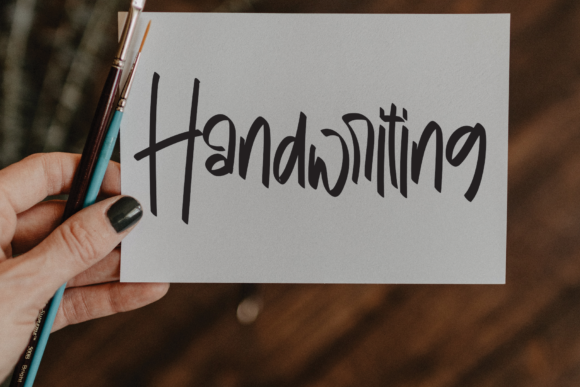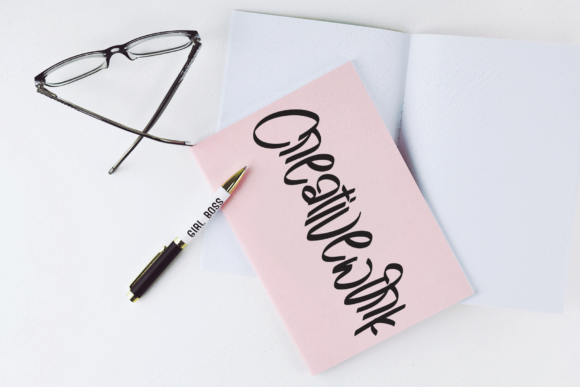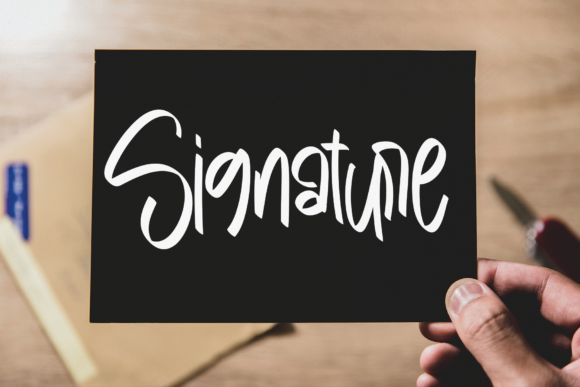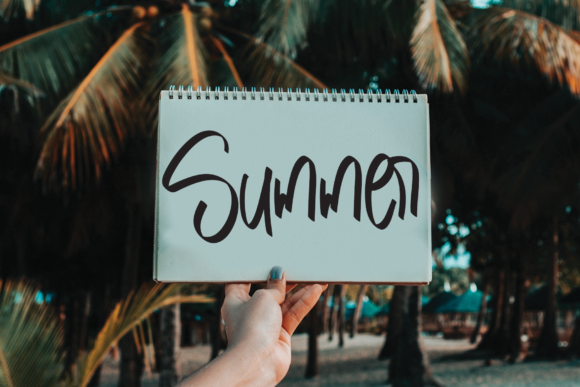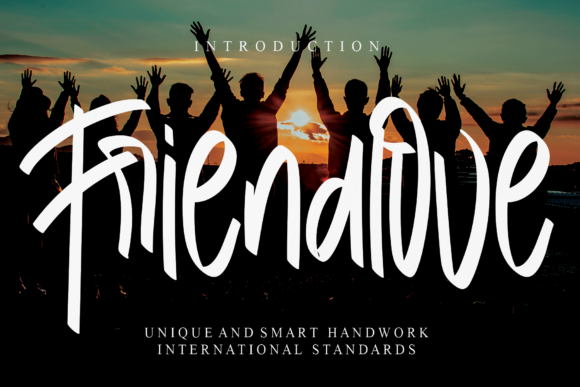
Discover the Charm of Friendlove Font: Elevate Your Designs with a Whimsical Script Font
In the world of typography, fonts play a crucial role in conveying the tone and personality of a design. For designers and crafters looking to add a touch of whimsy and relaxation to their creations, Friendlove Font is an excellent choice. This lovely script font boasts a relaxed theme, making it an incredible asset to any font library. In this article, we’ll explore the features and benefits of Friendlove Font, and how it can elevate your designs to the next level.
What is Friendlove Font?
Friendlove Font is a unique and charming script font that exudes a sense of calmness and friendliness. Its whimsical style is perfect for designs that require a personal touch, such as invitations, greeting cards, and social media graphics. The font’s relaxed theme makes it an excellent choice for projects that need to convey a sense of approachability and warmth.
Key Features of Friendlove Font
• Whimsical Script Style: Friendlove Font features a beautiful, flowing script style that adds a touch of elegance to any design.
• Relaxed Theme: The font’s relaxed theme makes it perfect for designs that require a calm and friendly tone.
• Versatile: Friendlove Font can be used for a wide range of projects, from invitations and greeting cards to social media graphics and blog posts.
• Easily Readable: The font is designed to be easily readable, making it perfect for body text and headings.
Benefits of Using Friendlove Font
So, why should you choose Friendlove Font for your designs? Here are just a few benefits of using this lovely script font:
• Adds a Personal Touch: Friendlove Font adds a personal touch to any design, making it perfect for projects that require a human touch.
• Elevates Your Designs: The font’s whimsical style and relaxed theme can elevate your designs and make them stand out from the crowd.
• Time-Saving: With Friendlove Font, you can create beautiful designs in no time, thanks to its easily readable and versatile nature.
• Perfect for Various Industries: The font is suitable for various industries, including wedding planning, lifestyle, and food blogging.
How to Use Friendlove Font in Your Designs
Using Friendlove Font in your designs is easy and straightforward. Here are a few tips to get you started:
• Pair it with Other Fonts: Pair Friendlove Font with other fonts to create a unique and visually appealing design.
• Use it for Headings and Body Text: Use Friendlove Font for both headings and body text to create a cohesive and flowing design.
• Experiment with Colors: Experiment with different colors to find the perfect combination that matches your brand’s tone and personality.
In conclusion, Friendlove Font is a beautiful and whimsical script font that can elevate any design. Its relaxed theme and lovely style make it an excellent choice for designers and crafters looking to add a touch of friendliness and approachability to their creations. With its versatility, readability, and ease of use, Friendlove Font is a must-have font for any design library.